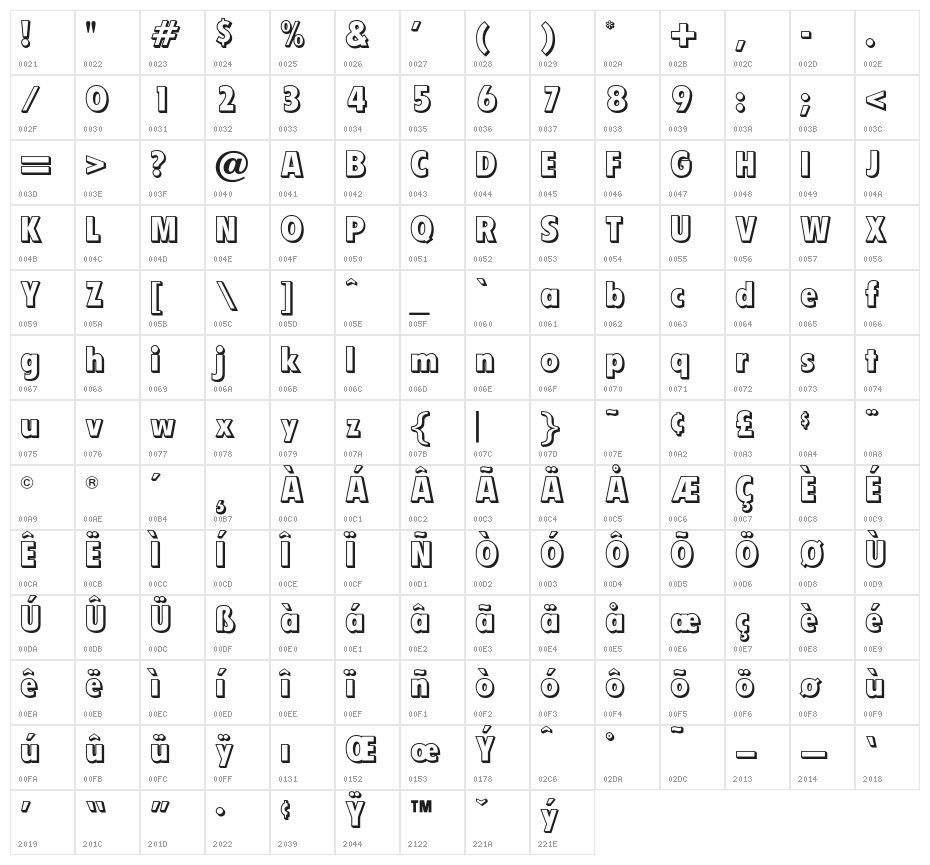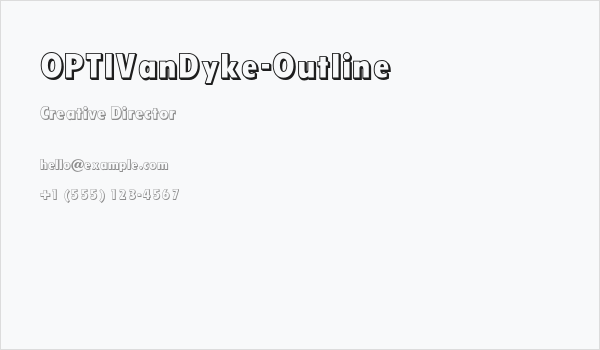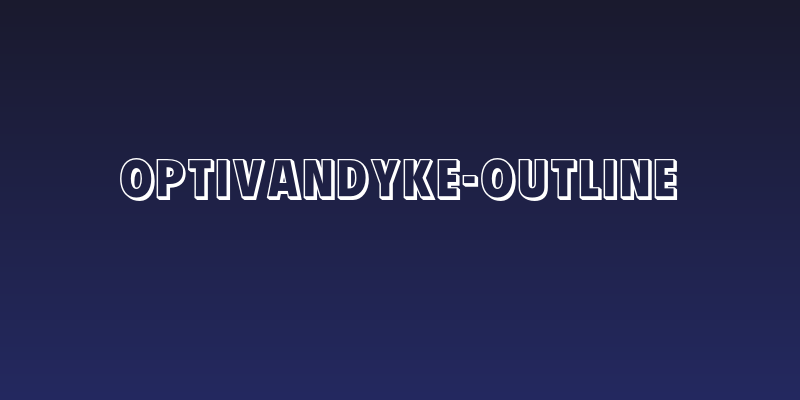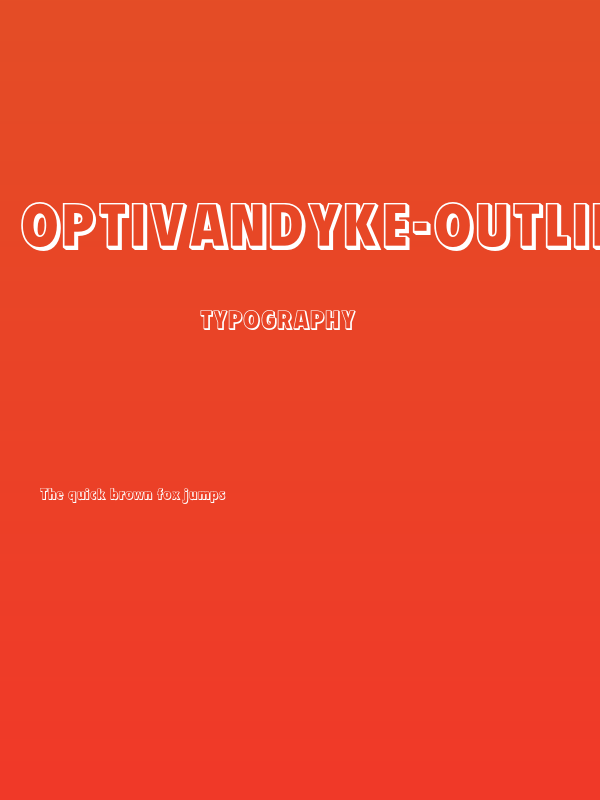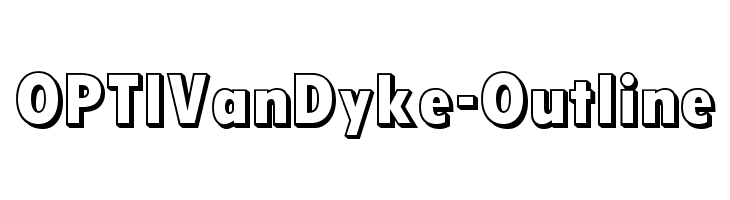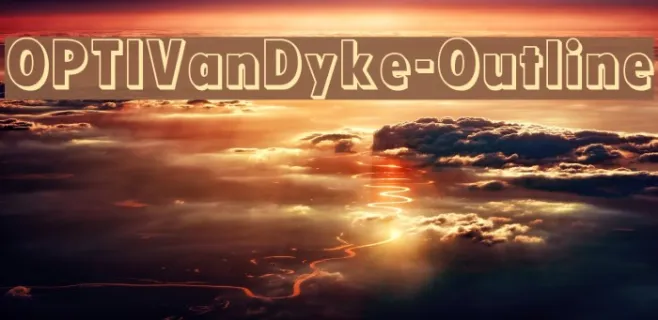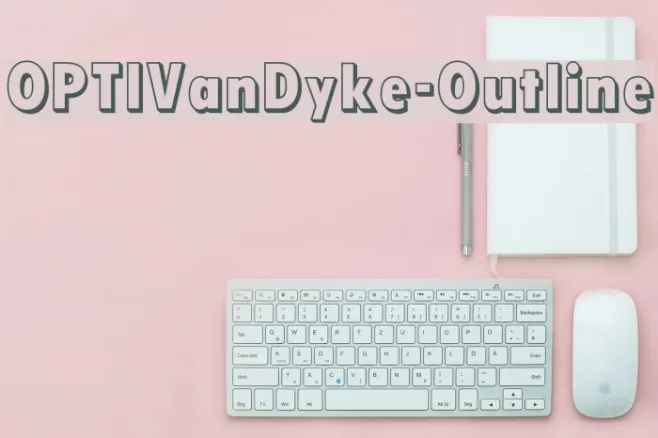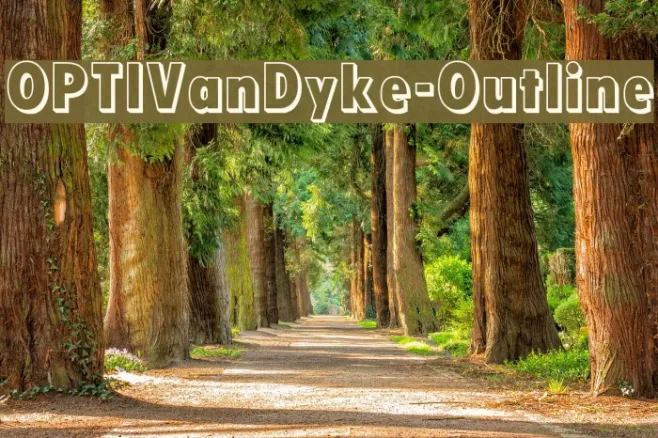
OPTIVanDyke-Outline Font
OPTIVanDyke-Outline Description
This font features a bold, outlined style that gives it a strong and impactful appearance. The uppercase and lowercase letters are well-proportioned, with a consistent stroke width that creates a harmonious look. The numbers and special characters maintain the same bold outline, ensuring uniformity across all characters. This font's design is both modern and versatile, making it suitable for a variety of applications. The clean lines and clear shapes enhance readability, while the outlined style adds a unique touch that sets it apart from standard bold fonts.
| Proposed Projects | Ideal for headlines, posters, branding, and any design requiring a bold statement. |